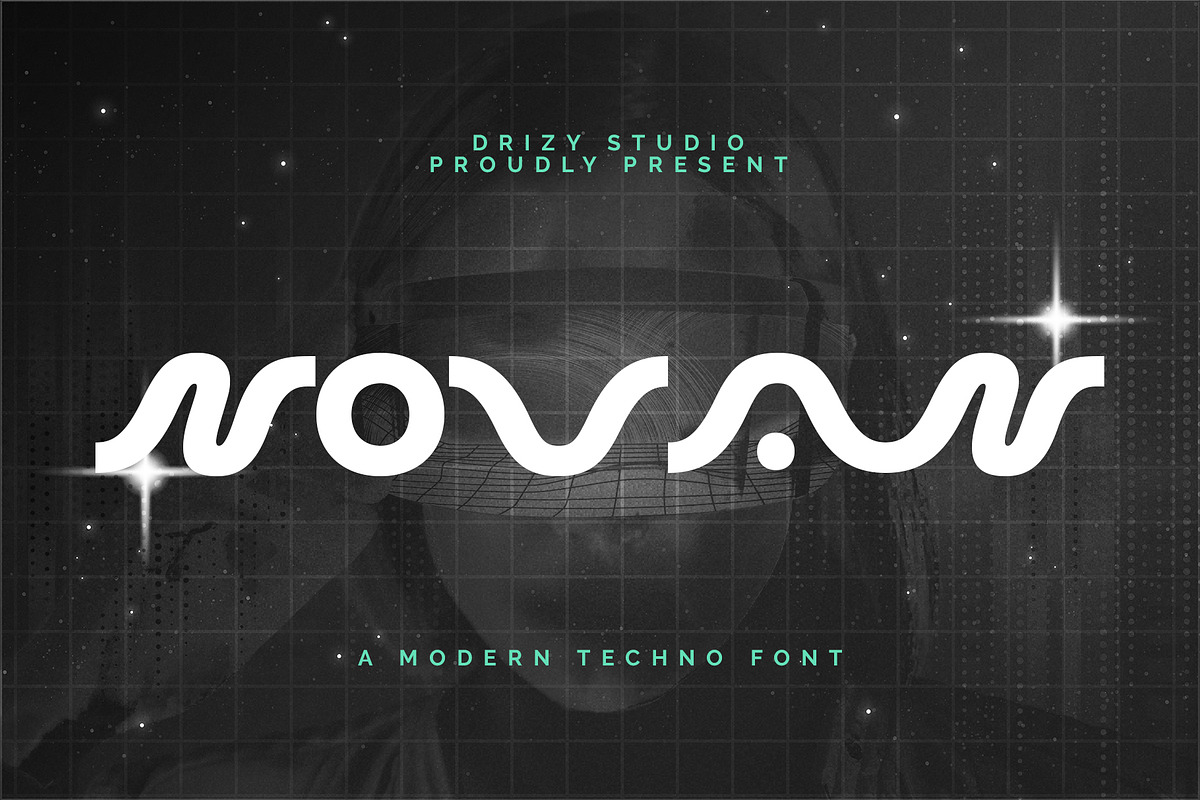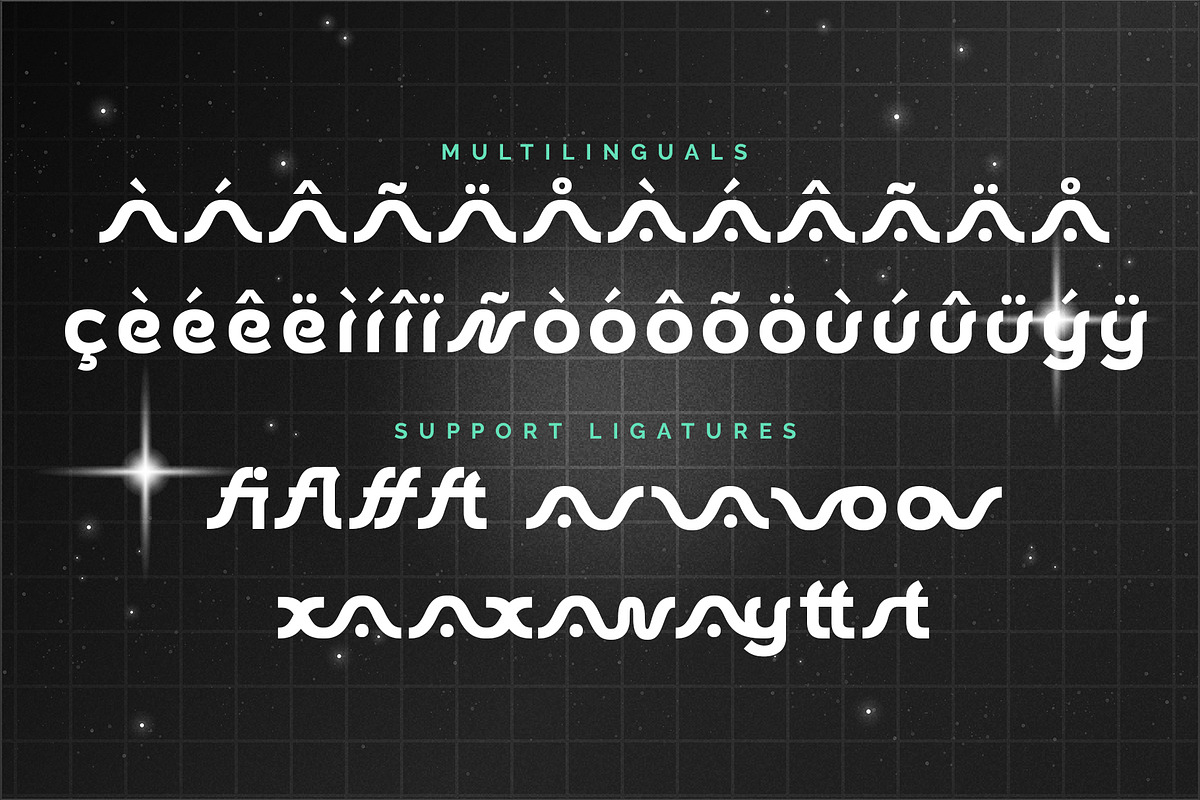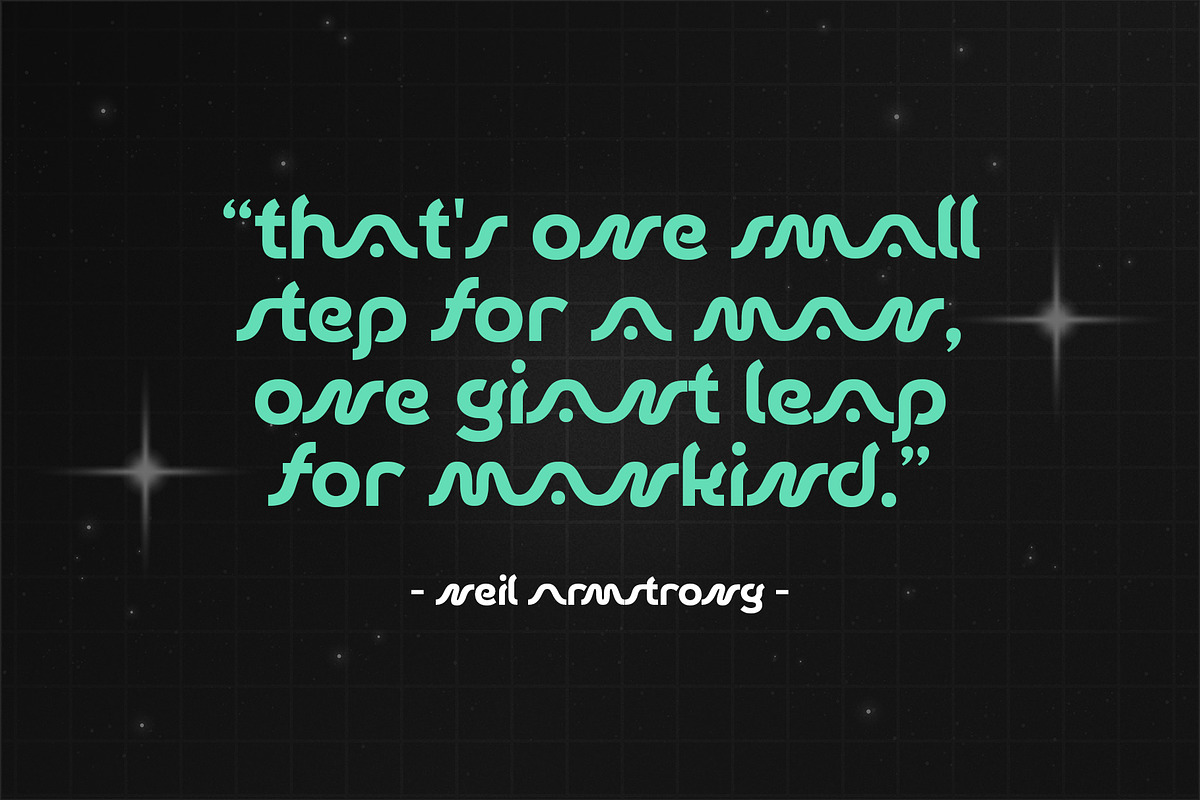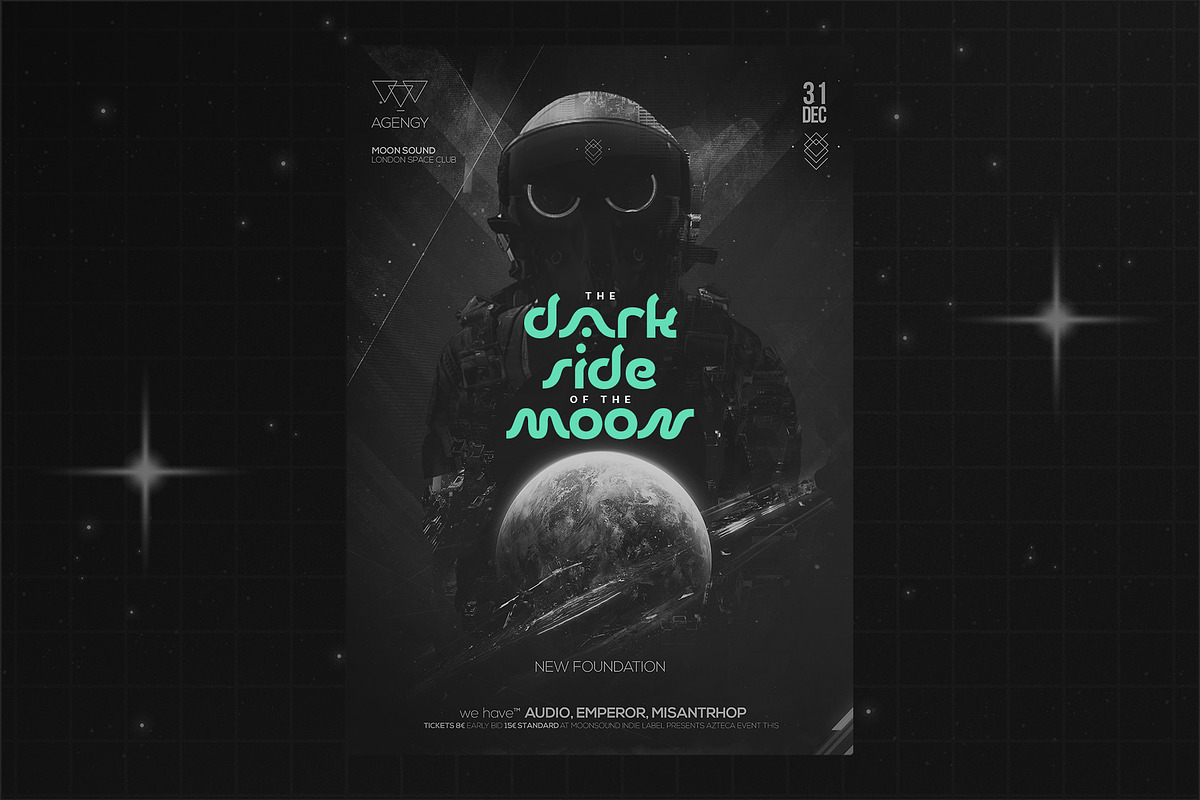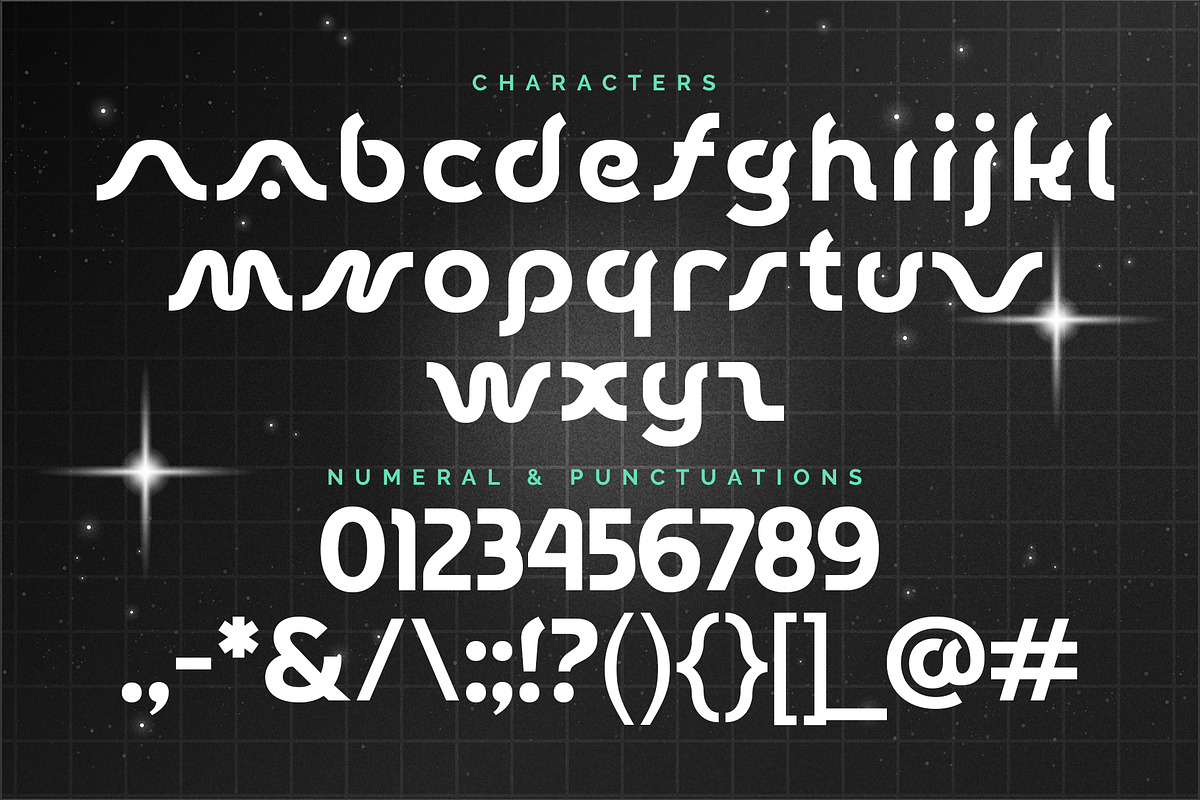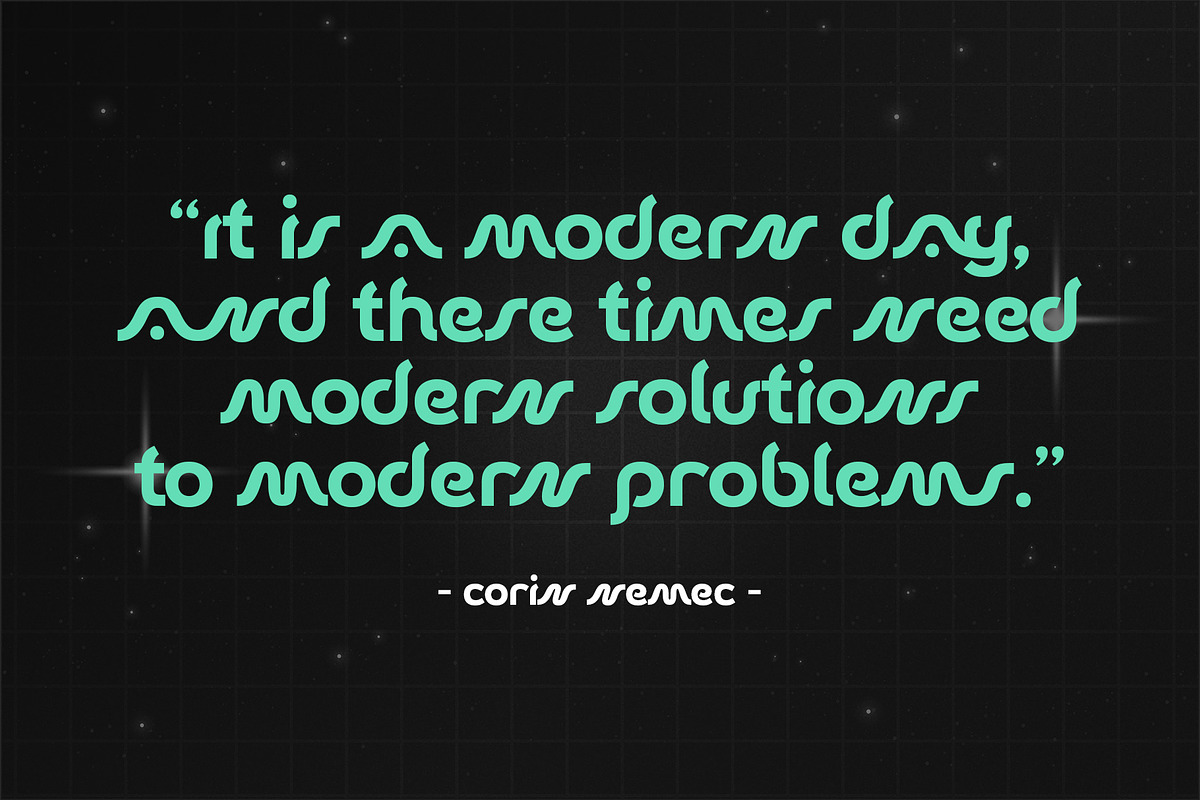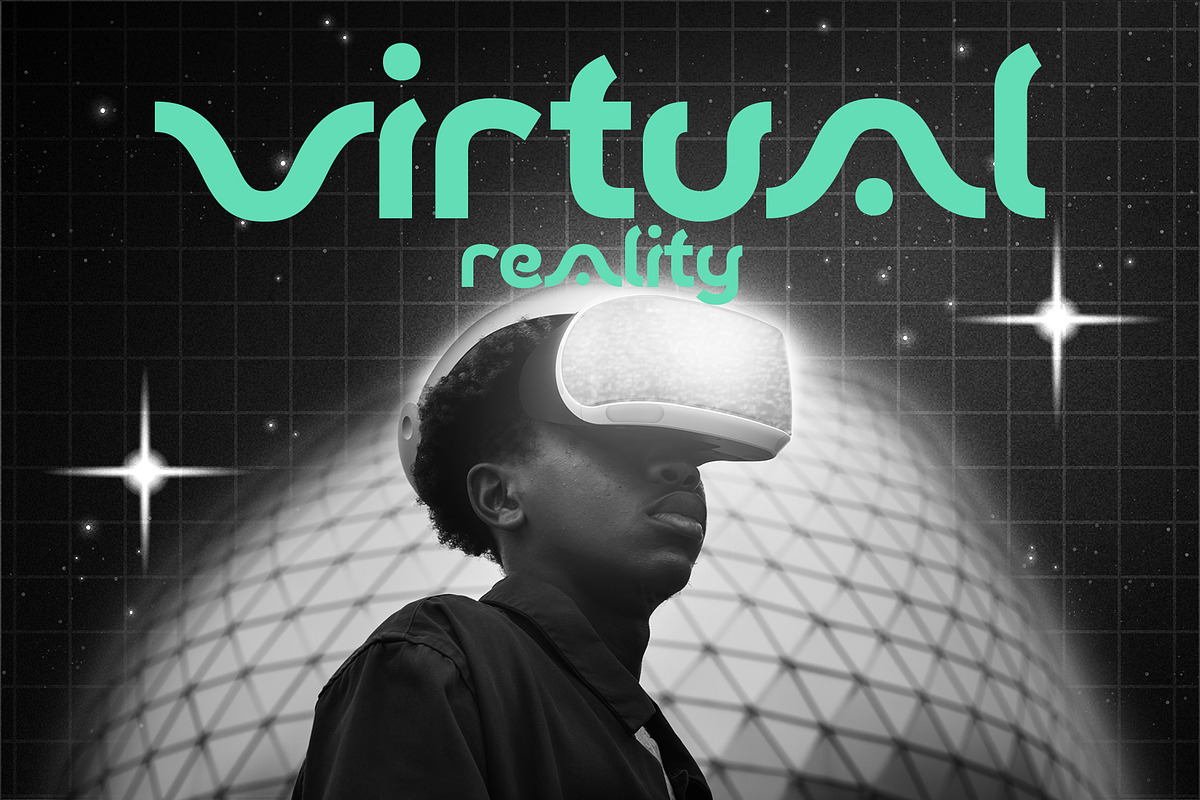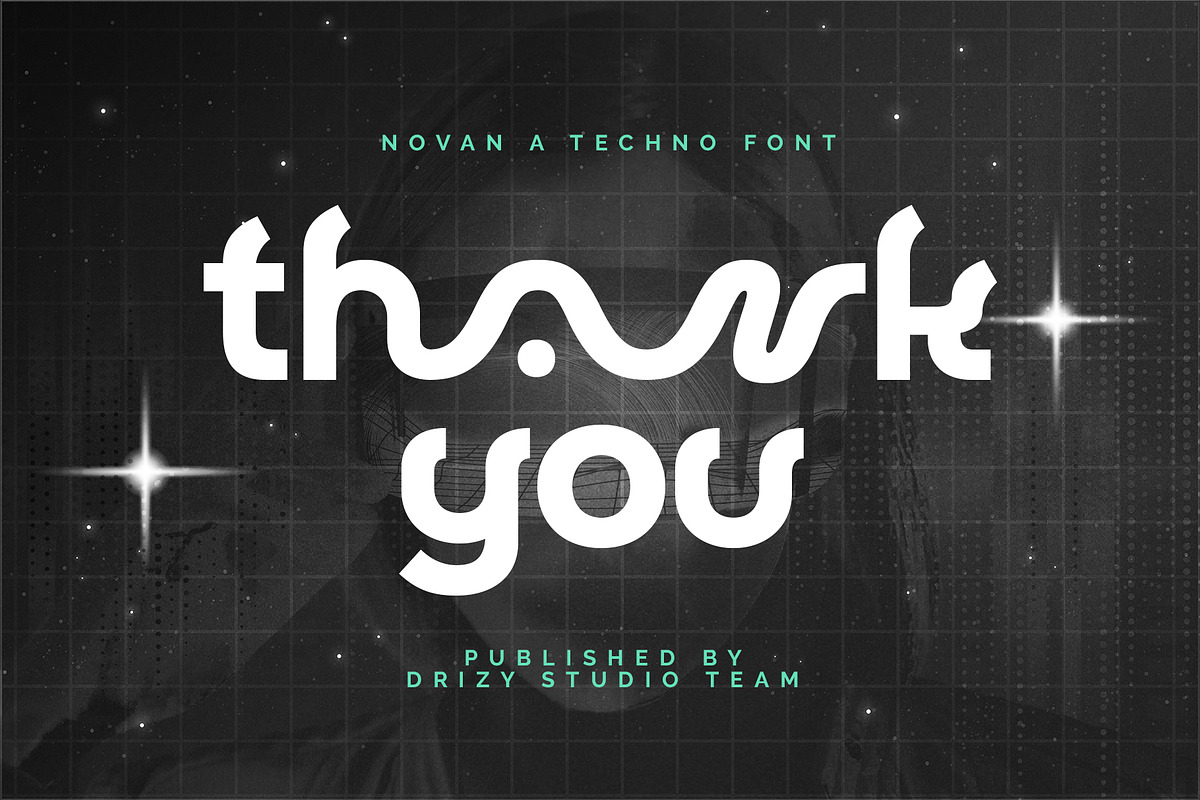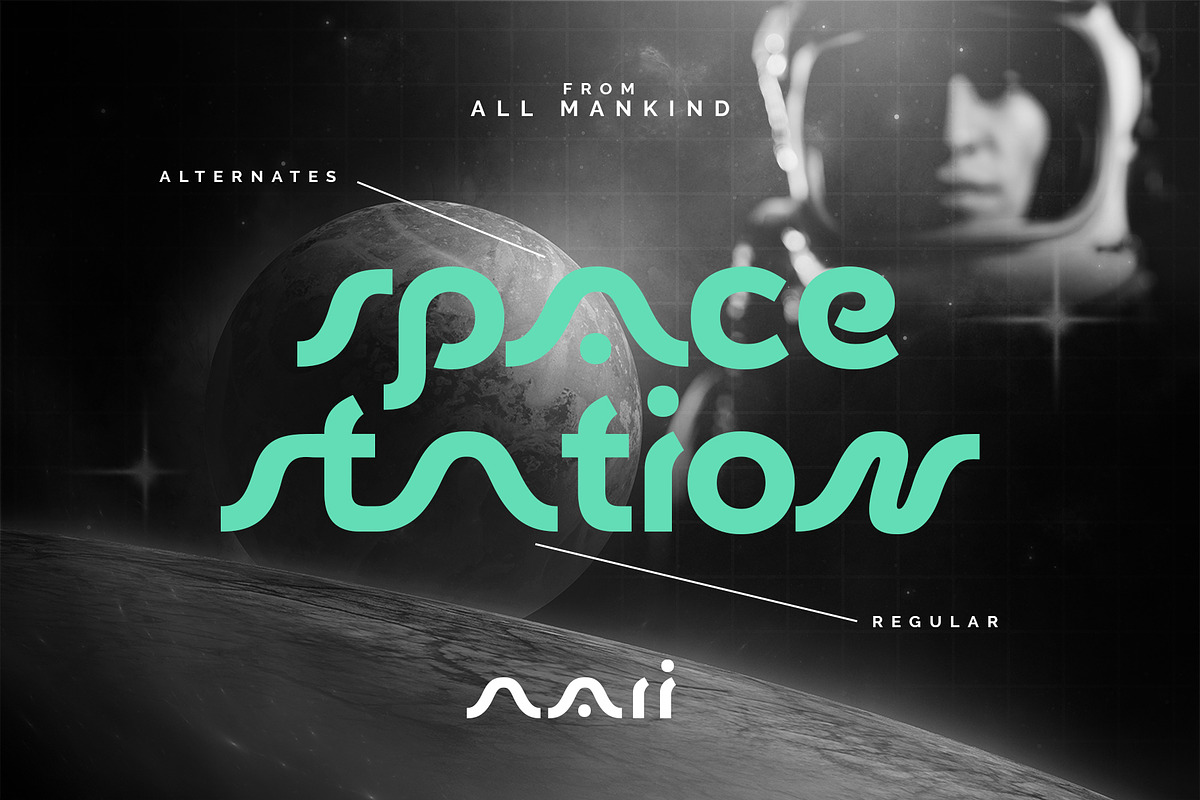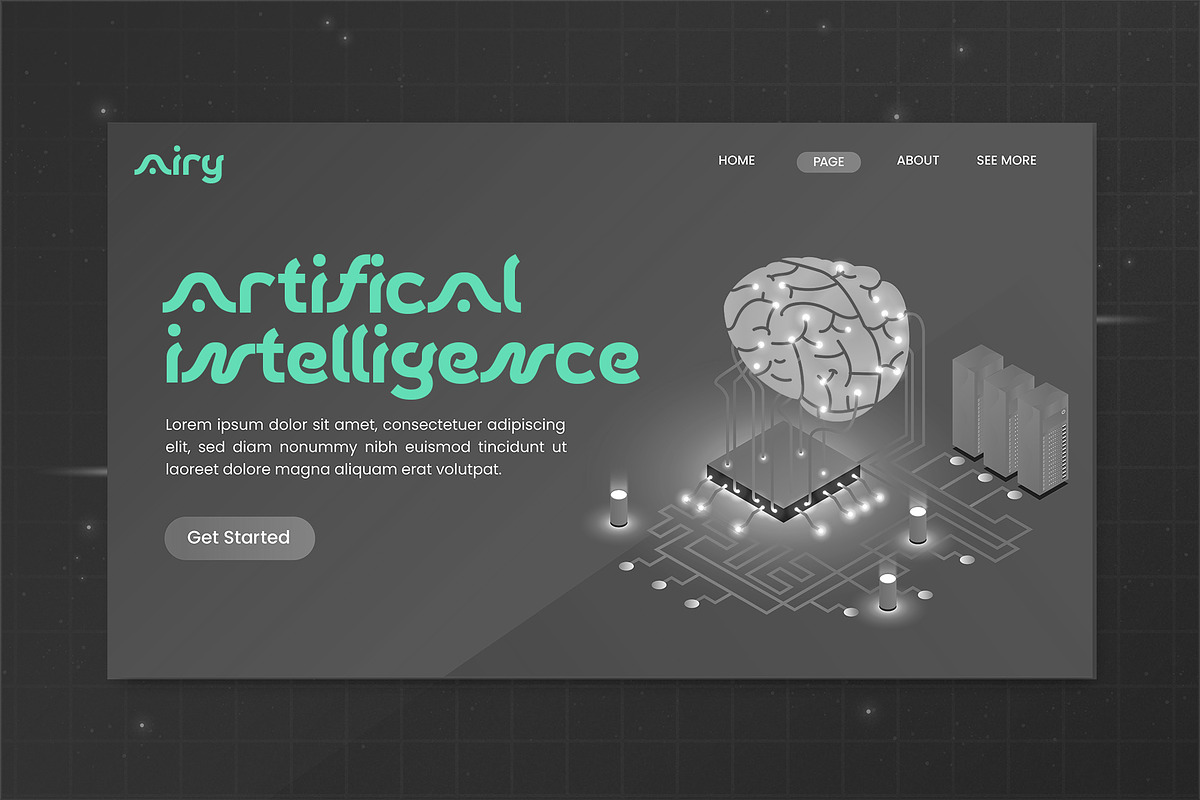
Novan
Introducing Novan!! a modern techno display font with multilingual support. Novan is great for creating eye-catching headlines, logo, applicable for any type of graphic design web, print, motion graphics, perfect for t-shirts and other items.